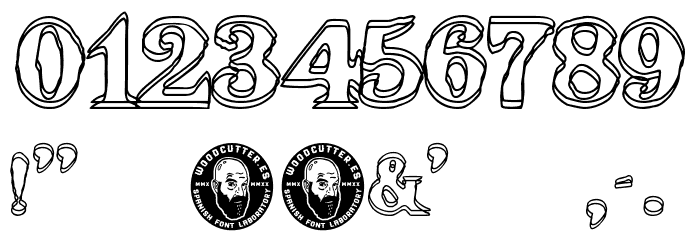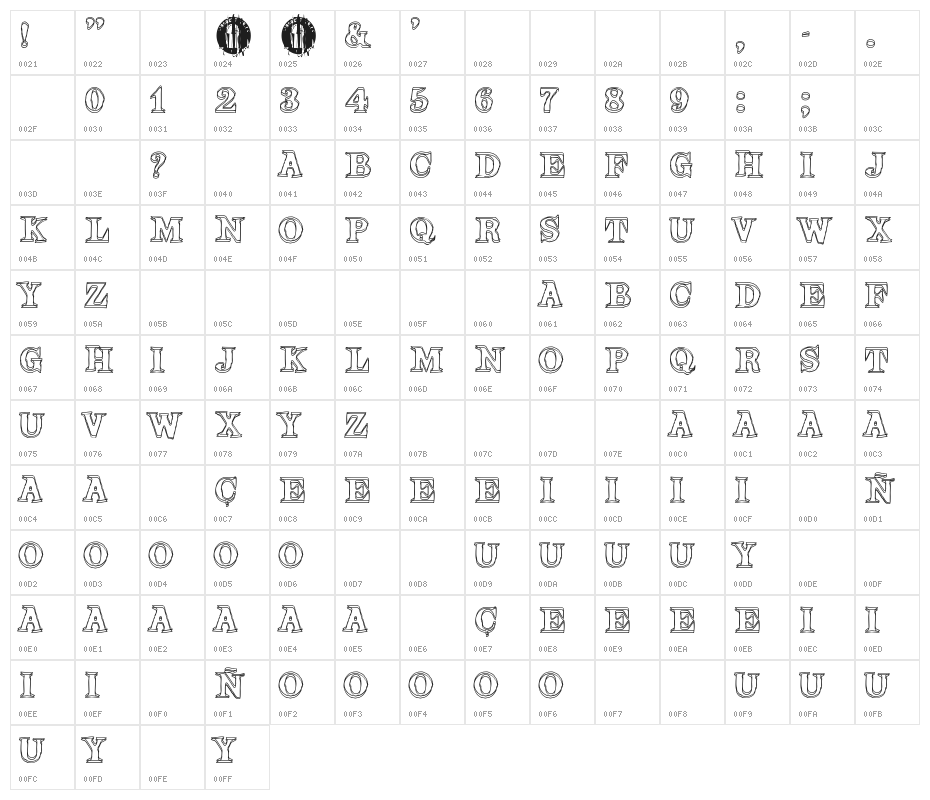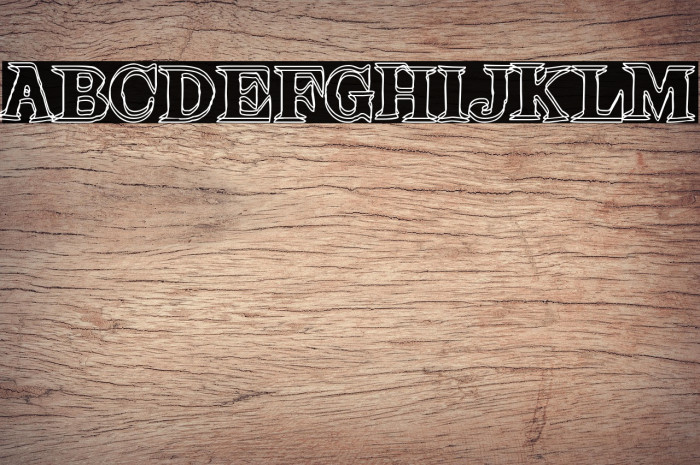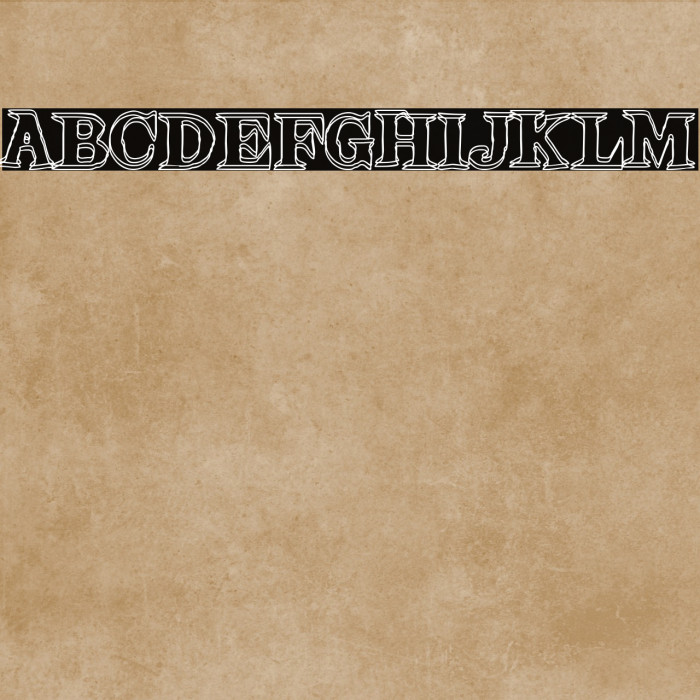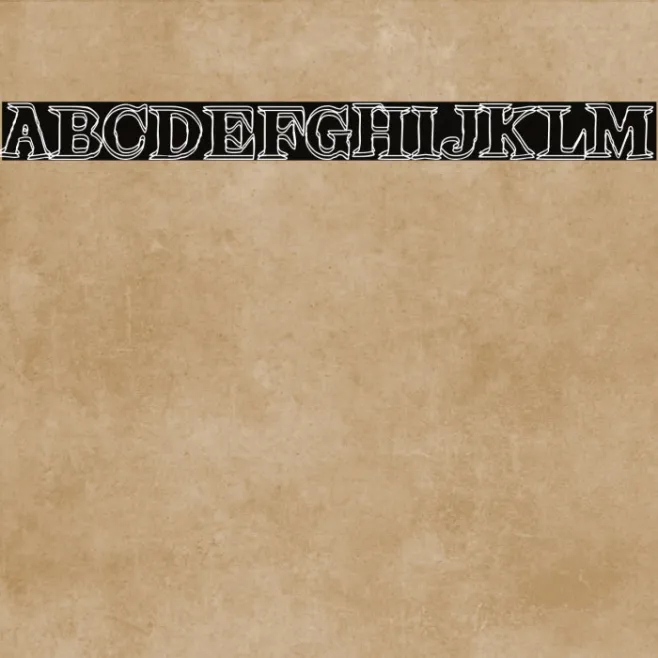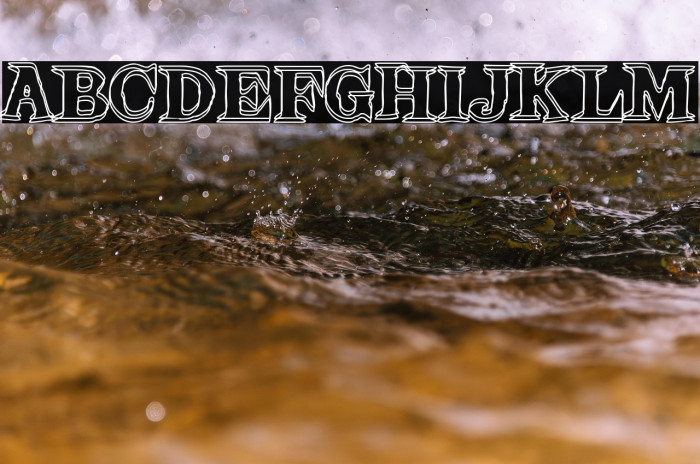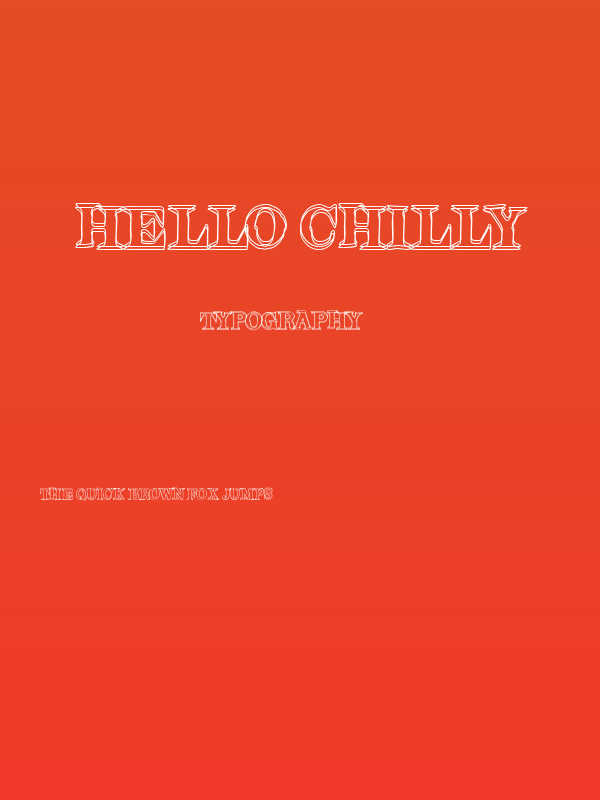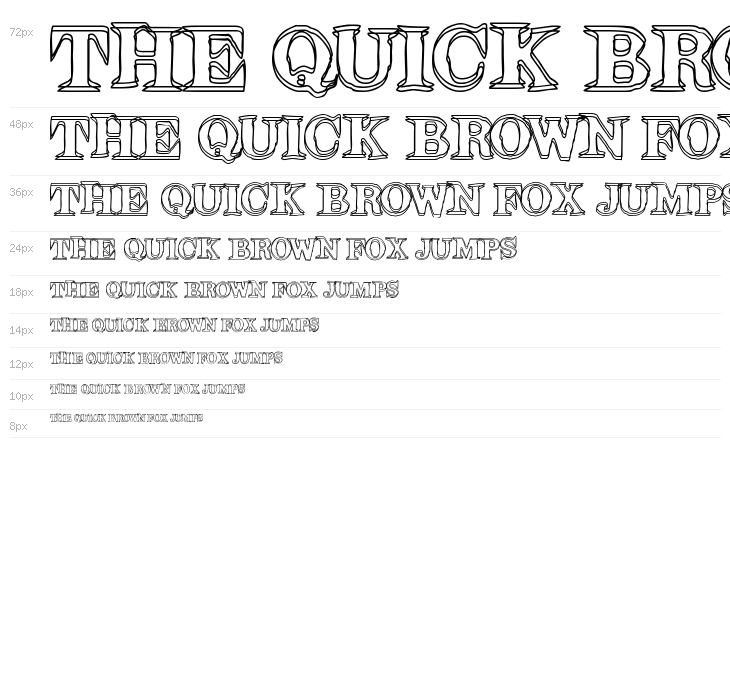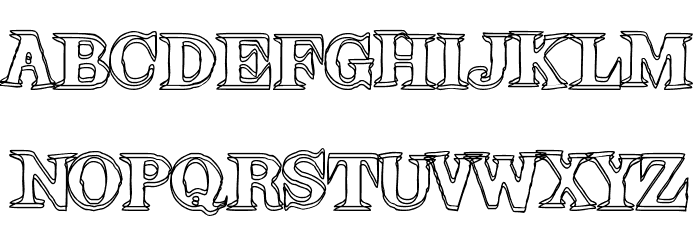
Hello Chilly Font
Hello Chilly Description
This font features a bold, decorative style with a unique outline effect that gives it a three-dimensional appearance. The uppercase letters are characterized by strong, angular serifs and a consistent stroke width, creating a sense of stability and strength. The lowercase letters maintain the same boldness and decorative flair, ensuring cohesion across different text cases. The numerals are equally bold and maintain the same outline style, making them stand out prominently. Special characters are included, matching the overall aesthetic with the same outlined, bold design. This font is ideal for projects that require a striking and memorable visual impact.